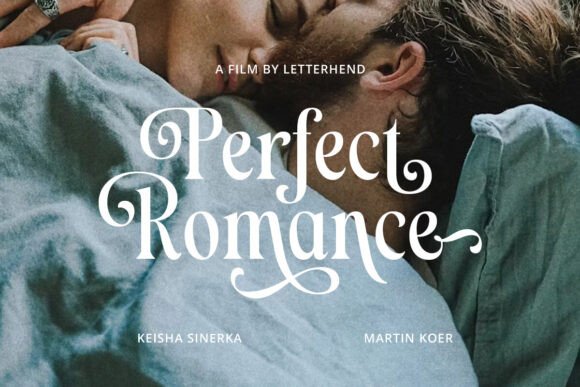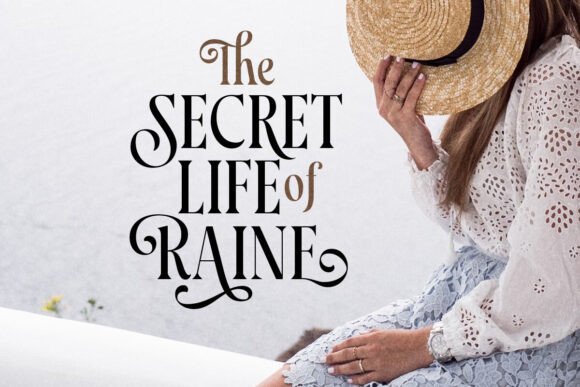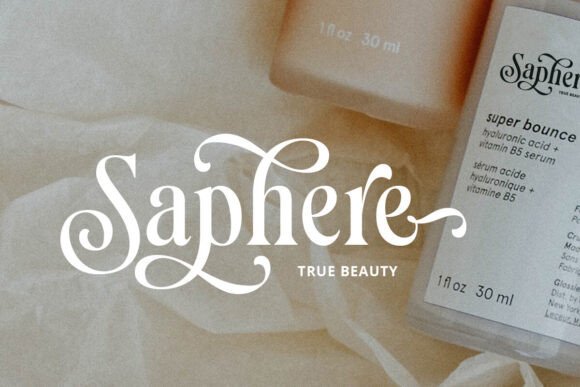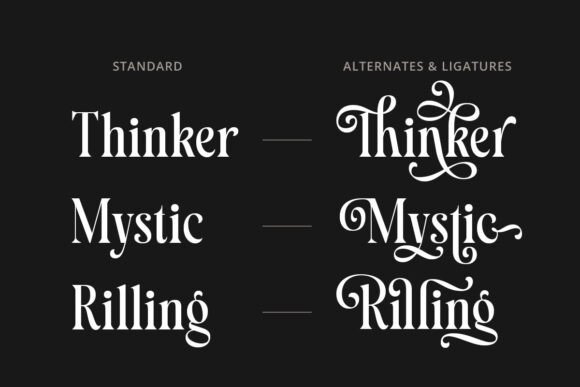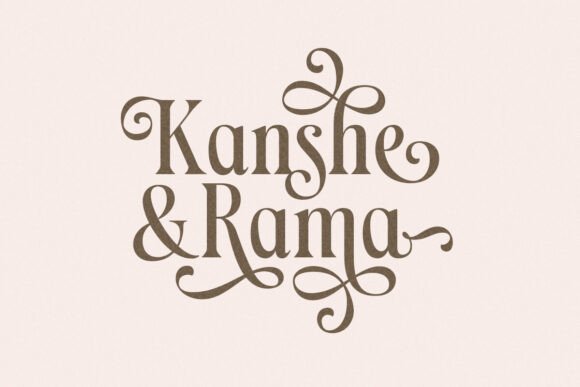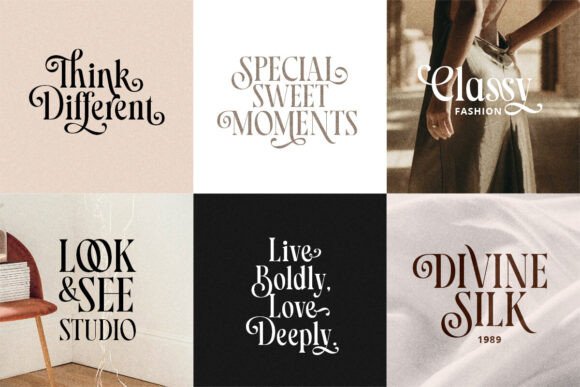
Introduction to Markstyle Font
As a designer, have you ever been stuck trying to find the perfect font for your project? You scroll through countless options, but none of them seem to capture the essence of your creative vision. This is where the Markstyle Font comes in – a game-changing design resource that elevates your typography to the next level.
| 👤 Author | letterhend |
Imagine yourself in a quiet café, sipping on a latte, surrounded by inspiration boards and design materials. You’re working on a high-end branding project, and you need a font that exudes luxury and sophistication. That’s when you stumble upon the Markstyle Font, with its elegant curves and refined ligatures. Its high quality design makes it a valuable asset for any creative project.
With the Markstyle Font, you can effortlessly create stunning typography with its numerous alternates and ligatures. Whether you’re working on a wedding invitation, packaging design, or luxury branding, this font is sure to make your project stand out. And the best part? It’s available for free download, allowing you to explore its full potential without any restrictions.
Key Features of Markstyle Font
- High-quality design resource suitable for various creative projects
Honest Review: Markstyle Font
As a designer, I’m always on the lookout for high-quality design resources to elevate my creative projects. The Markstyle Font is one such resource that caught my attention, and I’m excited to share my honest review.
What works well: ✨ The Markstyle Font is incredibly versatile, with a wide range of styles and weights that make it perfect for various design applications. I’ve used it for logos, business cards, and even web design, and it looks great every time. The font is also highly legible, making it easy to read even in smaller sizes.
Overall impression: I’m really impressed with the Markstyle Font, and I think it’s a great addition to any designer’s toolkit. While it may have some limitations, the benefits far outweigh the drawbacks. If you’re looking for a high-quality, free design resource for your creative projects, I’d definitely recommend giving the Markstyle Font a try.
- Highly versatile with various styles and weights
- Highly legible even in smaller sizes
Markstyle Font is suitable for a variety of creative projects, including logos, brochures, business cards, and social media graphics. Its high-quality design makes it an excellent choice for any project where you want to make a lasting impression.